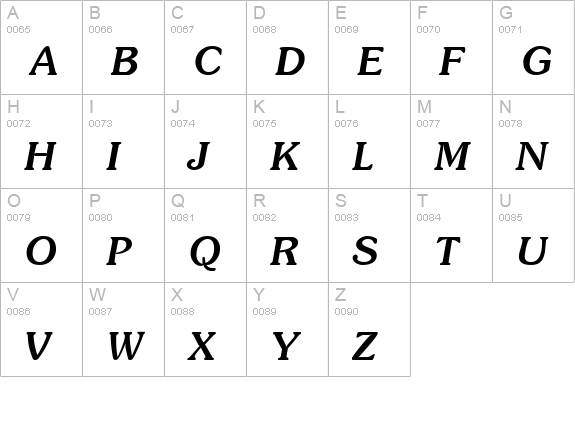
Soutane fed kursiv Font Details
Introducing the exquisite Soutane fed kursiv font, a true masterpiece in the world of typography. This captivating font is the perfect blend of elegance and sophistication, making it an ideal choice for any project that demands a touch of class. Soutane fed kursiv features a unique combination of flowing curves and sharp angles, creating a visually stunning design that is sure to catch the eye. Its delicate strokes and graceful letterforms add a sense of refinement and beauty to any text it adorns. But what truly sets Soutane fed kursiv apart is its versatility and accessibility. This font is freely available to download at FontsMarket.com, making it accessible to designers and enthusiasts alike. Whether you're working on a personal project, creating a professional design, or simply exploring the world of typography, Soutane fed kursiv is here to meet your every need. With its extensive character set and wide range of weights, Soutane fed kursiv offers endless possibilities for customization and creative expression. From elegant logos to captivating headlines, from wedding invitations to book covers, this font brings a touch of timeless beauty to any design. Soutane fed kursiv is not just a font; it's a statement. It embodies the spirit of creativity and the power of self-expression. Its sleek and stylish aesthetics make it a standout choice for designers who strive for perfection in every detail. So why wait? Embrace the beauty of Soutane fed kursiv and elevate your designs to new heights. Download this remarkable font for free at FontsMarket.com and unlock a world of endless possibilities. Discover the beauty and versatility of Soutane fed kursiv today.